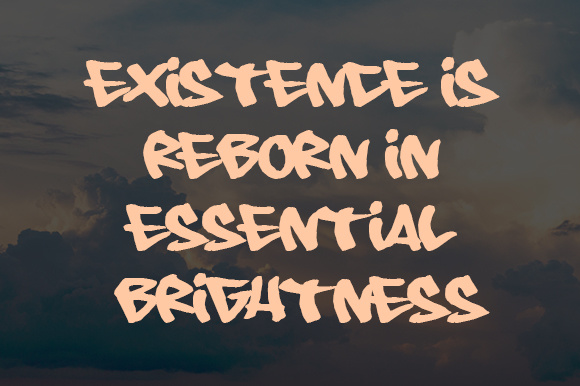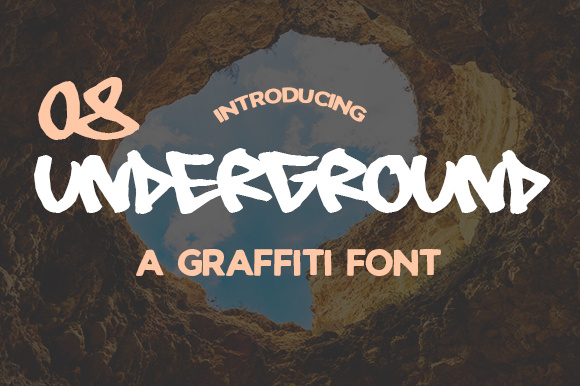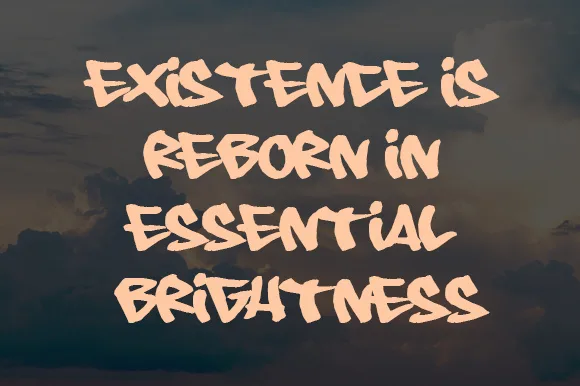
08 is a free decorative graffiti font from typographer Johan Waldenstrom. This font is surprisingly legible, and can add a masculine touch to your creative projects.